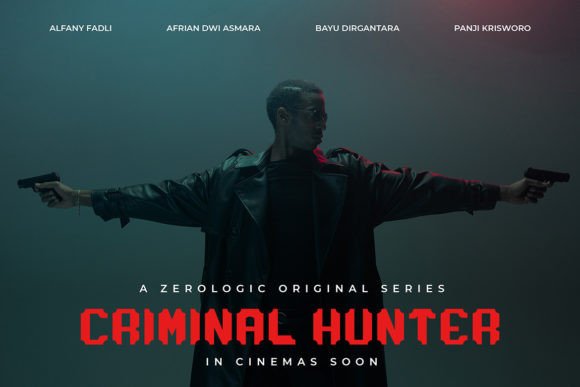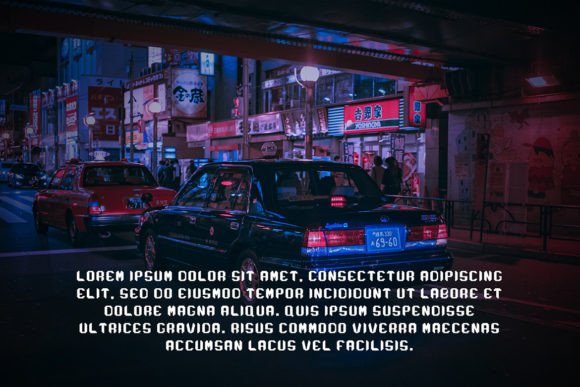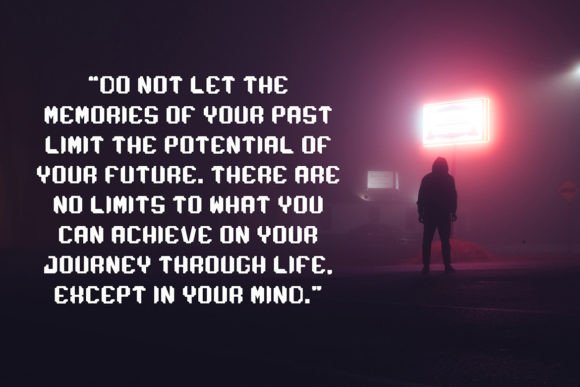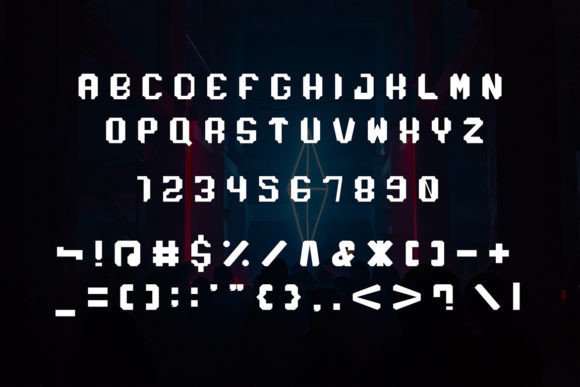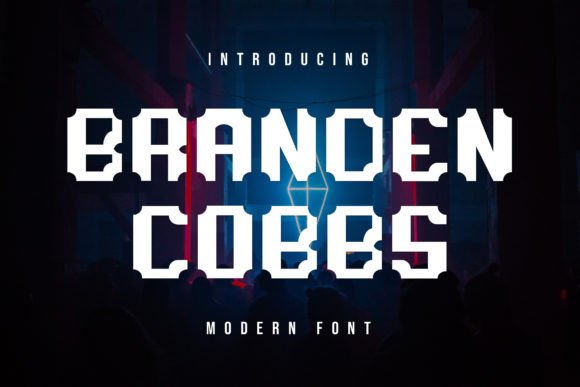
Introducing Branden Cobbs Font: Elevate Your Designs with a Modern Twist
In the world of typography, a font can make or break a design. As a designer or crafter, you’re constantly on the lookout for that perfect typeface that will set your project apart from the rest. Look no further than Branden Cobbs Font, a modern font designed with an original touch to meet your unique needs.
What Makes Branden Cobbs Font Stand Out?
Branden Cobbs Font is a cool and versatile font that boasts a complete character set, including Uppercase, Lowercase, Numeric, and symbols. Its strong and sharp lines make it perfect for a wide range of design applications, from titles and typography to posters, magazines, brochures, packaging, websites, and more.
Key Features of Branden Cobbs Font
- Complete Character Set: Uppercase, Lowercase, Numeric, and symbols, giving you everything you need to create stunning designs.
- Modern Design: A fresh and original take on modern typography, perfect for designers looking for something new and exciting.
- Versatile: Suitable for a wide range of design projects, from print to digital media.
- Strong and Sharp: The bold lines and sharp edges of Branden Cobbs Font make it perfect for titles, headings, and emphasis text.
Use Branden Cobbs Font for Your Design Needs
Whether you’re working on a branding project, creating a poster, or designing a website, Branden Cobbs Font is the perfect choice. Its modern and edgy vibe will add a touch of sophistication and style to your designs, making them stand out from the crowd.
Branden Cobbs Font in Graphic Design
In graphic design, typography plays a crucial role in communicating a message. With Branden Cobbs Font, you can create stunning visual effects, from bold headings to elegant body text. Its versatility and range make it perfect for:
- Logos and Branding: Create a lasting impression with a custom logo or brand identity that showcases your unique style.
- Posters and Flyers: Grab attention with bold and eye-catching typography that demands to be noticed.
- Magazines and Brochures: Add a touch of sophistication and elegance to your editorial designs.
Branden Cobbs Font in Digital Design
In the digital realm, Branden Cobbs Font is perfect for:
- Websites: Enhance your website’s typography and create a lasting impression on your visitors.
- Social Media: Stand out on social media platforms with bold and eye-catching typography.
- Email Marketing: Add a touch of style and sophistication to your email campaigns.
Why Choose Branden Cobbs Font?
With so many fonts available, why choose Branden Cobbs Font? Here are just a few reasons:
- Unique and Original: Branden Cobbs Font is a one-of-a-kind typeface that will set your designs apart from the rest.
- High-Quality: Professionally designed and crafted with attention to detail, ensuring a high-quality font that will elevate your designs.
Branden Cobbs Font is a modern font designed with an original touch to meet the unique needs of designers and crafters. Its strong and sharp lines, complete character set, and versatility make it perfect for a wide range of design applications. Whether you’re working on a graphic design project, digital design, or craft project, Branden Cobbs Font is the perfect choice. Elevate your designs with a modern twist and make them stand out from the crowd with Branden Cobbs Font.